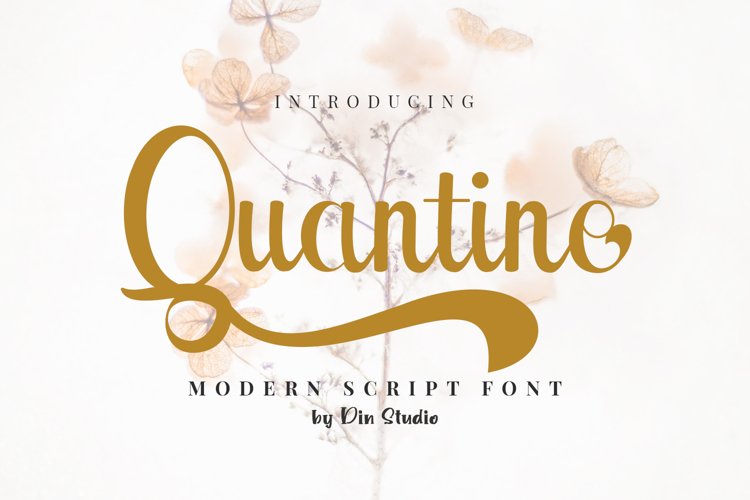
Quantine is a modern script typeface with a best style. Perfect for display, quotes, headline, wedding needs, crafting needs, logo, logotype, signature, business card, header, tittle, florist needs, and many more.